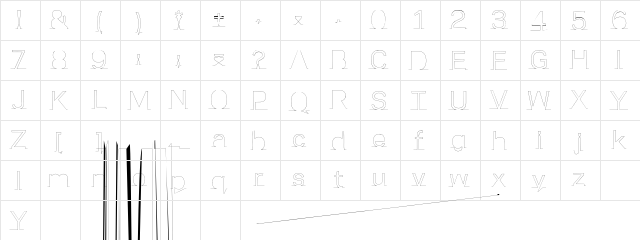
Daily Regular
| Foundry | Tracy Jenkins |
| Designer | Tracy Jenkins |
Design Context for Daily Typeface
Daily offers clean, dependable letterforms without strong stylistic allegiance, making it a practical choice for designers who need flexibility.